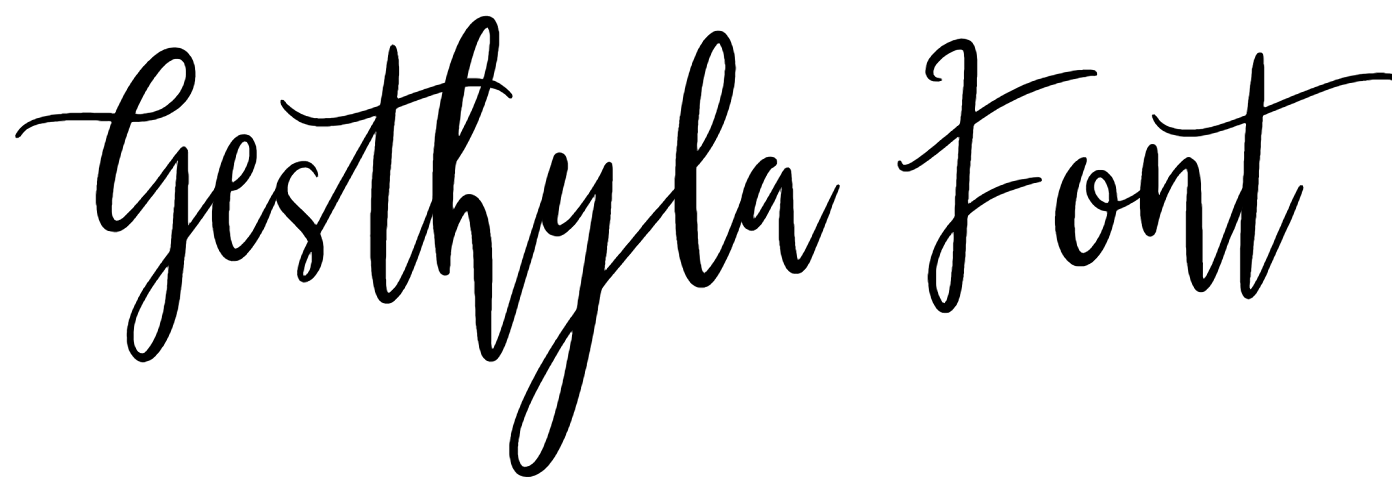
Gesthyla
Gesthyla is a handwritten font created by Rian Rahardi and released through Creatype Studio Co (2019). The letters have the small wobbles and personality of real handwriting, so your text feels warm instead of printed. You can download it for free and test it with your own words in the preview above.
- Designer: Rian Rahardi
- Publisher: Creatype Studio Co
What You Can Type With Gesthyla
With complete upper and lowercase letters and all ten digits, Gesthyla is ready for real wording, not just a single headline. Common punctuation such as &, !, ? and @ is included as well. It also has the accented letters you need for German.
Ligatures and Smart Letters in Gesthyla
Where Gesthyla Works Best
Think of Gesthyla for greeting cards, journal pages and friendly social posts. Its lowercase letters are small compared to the capitals, so set it a size or two bigger than usual. Set it a bit larger than you would a normal text font. Handwriting styles lose their charm once they get too small to read comfortably.
Does Gesthyla have ligatures?
Yes. Gesthyla has ligatures that turn on by themselves in most design apps and browsers, so you don't need to do anything special.
Does Gesthyla support accented letters?
Yes. Gesthyla includes the accented letters needed for German, so it works for more than just English.